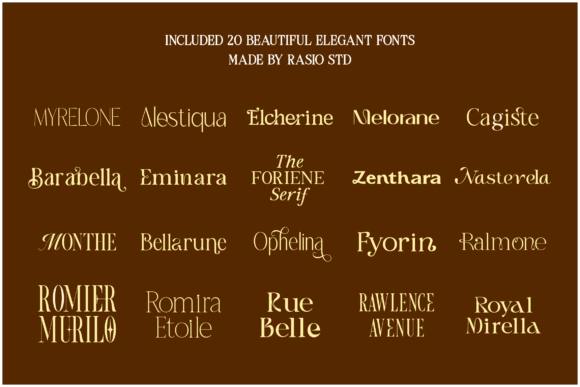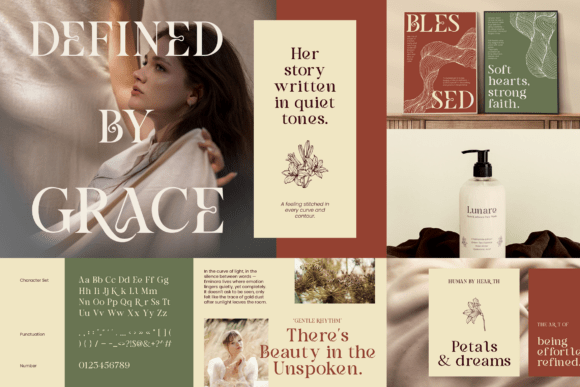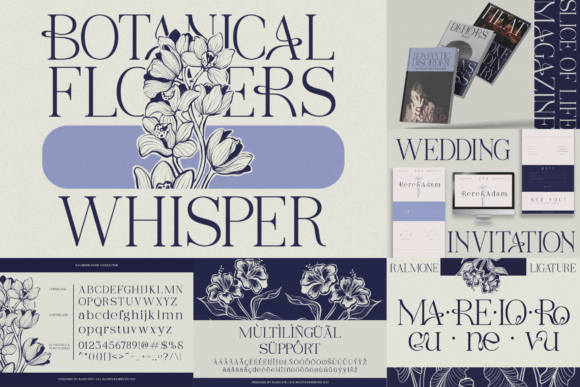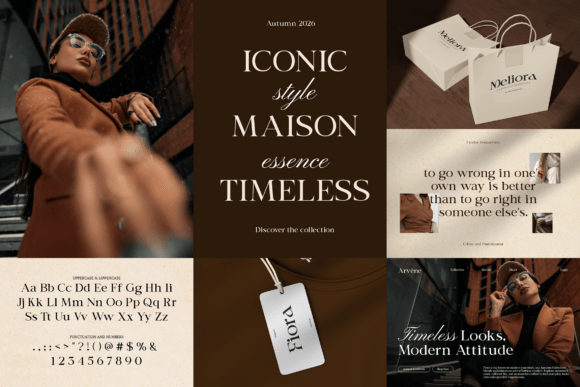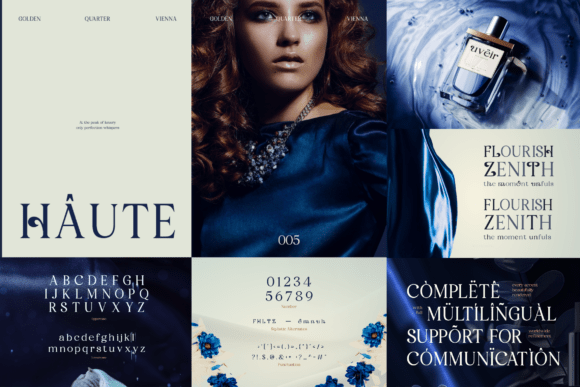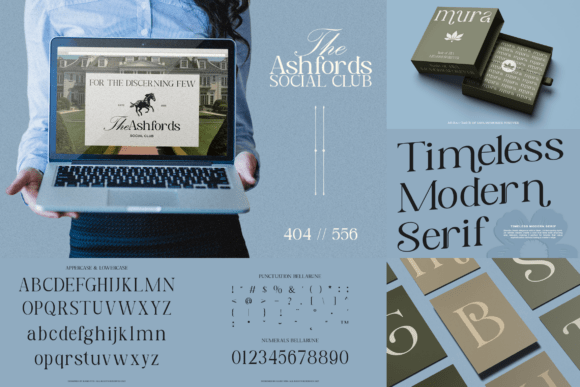
Elevate Your Designs with Timeless Elegance
As a designer, you know that the right font can make all the difference between a good design and a great one. You’ve spent hours pouring over typography styles, searching for that perfect combination of style and sophistication. And then, it hits you – a moment of creative clarity where everything falls into place. You envision a beautiful, elegant design that exudes luxury and refinement.
That’s where the Beautiful Elegant Font Bundle comes in, a curated collection of 20 exquisite typefaces designed to transport your designs to a world of timeless beauty and refined sophistication. With its delicate curves, high contrast strokes, and sophisticated letterforms, this exclusive bundle is the perfect tool for designers seeking to elevate their work to new heights.
Key Features of Beautiful Elegant Font
- Unique Characteristics: This font features intricate details, elegant curves, and subtle flourishes that give it a sophisticated and refined look.
- Style Variations: The font family includes various styles, including regular, italic, bold, and bold italic, allowing designers to create visually appealing and balanced typography.
Beautiful Elegant Font Review
At first glance, the “Beautiful Elegant Font” seems like a dream come true. ✨ Its classic and sophisticated design instantly adds a touch of refinement to any text. The font is perfect for creating elegant invitations, wedding stationery, or even luxury brand logos. The elegant curves and delicate lines make it a great choice for designers looking to add a sense of luxury and sophistication to their projects.
- ✨ Elegant and sophisticated design
- ✨ Perfect for luxury brands and high-end designs
- ⚠️ Limited font sizes – may not be ideal for large-scale text
- ⚠️ Not as versatile as some other fonts – may not work well for bold or playful designs
- ⚠️ Some users may find the font too ornate or over-the-top
Overall, the “Beautiful Elegant Font” is a solid choice for designers looking to add a touch of luxury and sophistication to their projects. While it may not be the best fit for every design, it’s definitely worth considering for high-end or elegant projects.
- Use it sparingly to add a touch of elegance to your designs.
- Pair it with a clean and simple background to let the font shine.
The Beautiful Elegant Font is perfect for:
- Blog posts and articles.